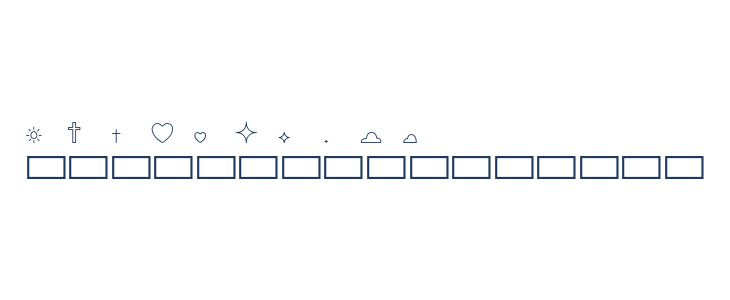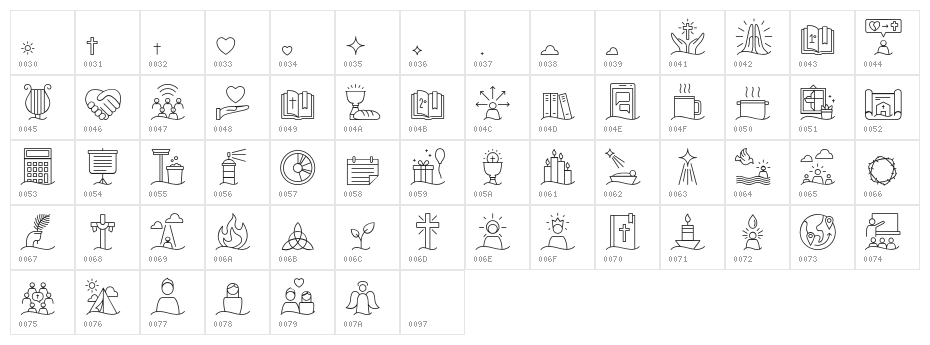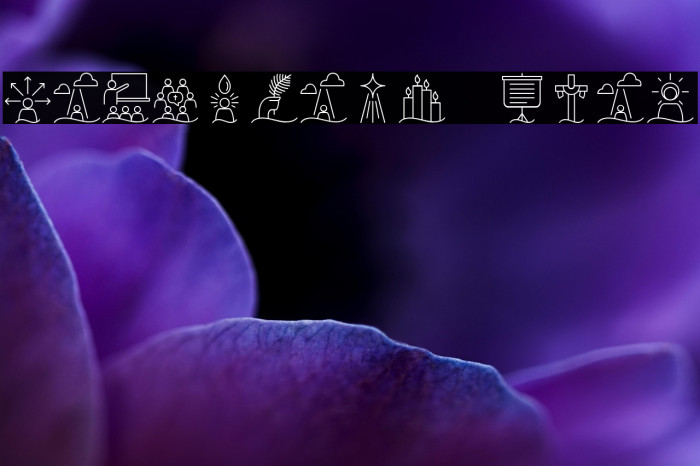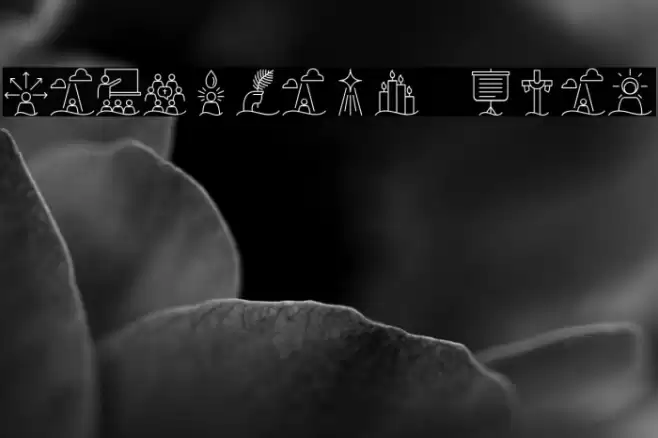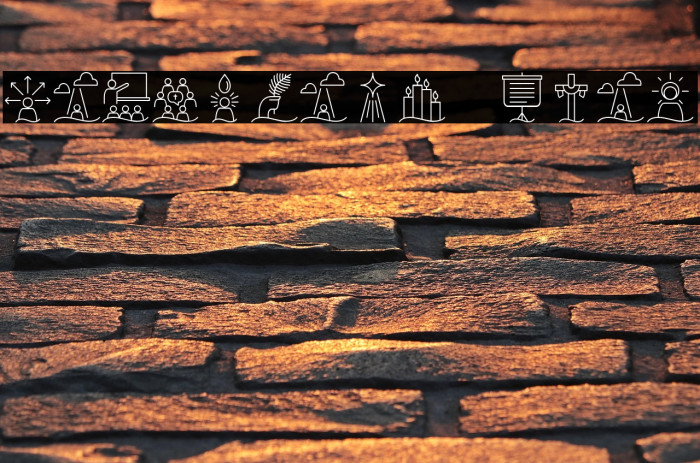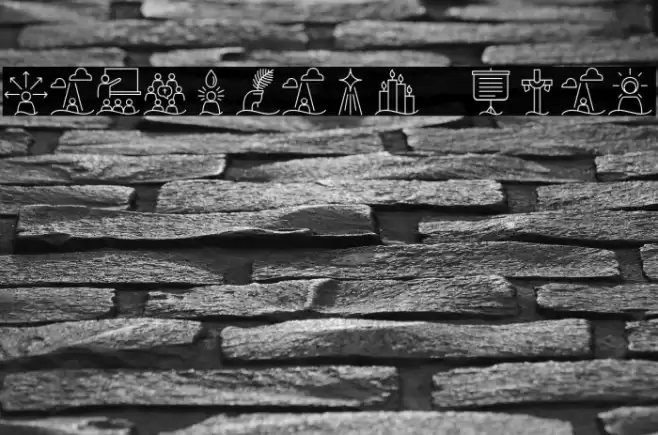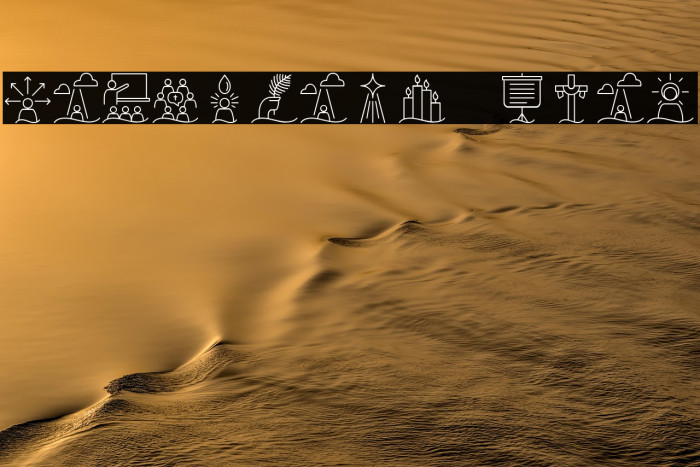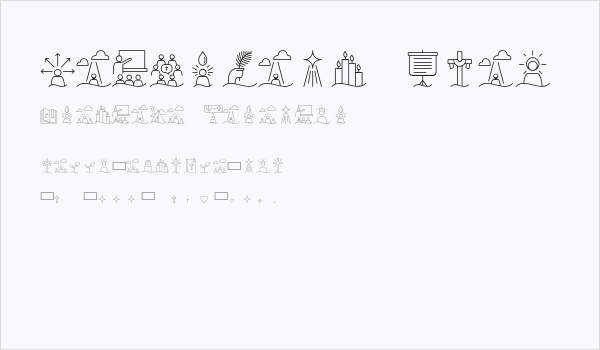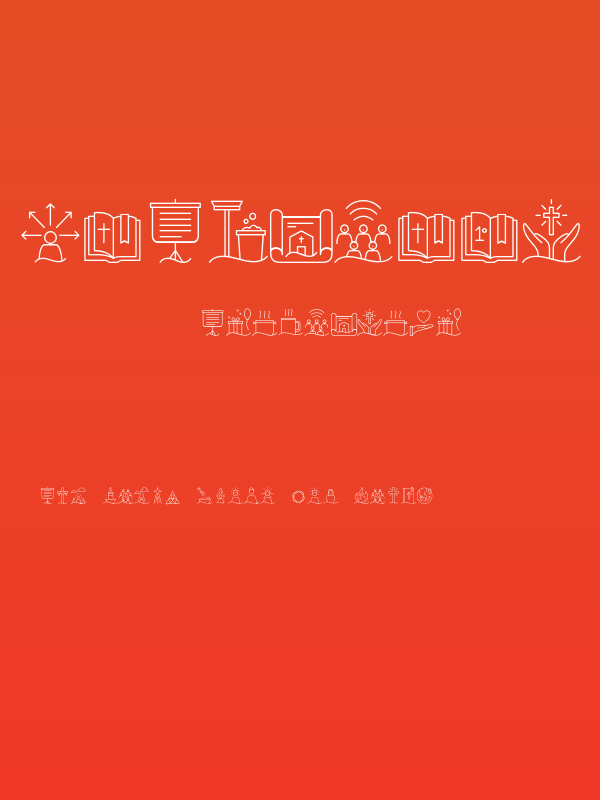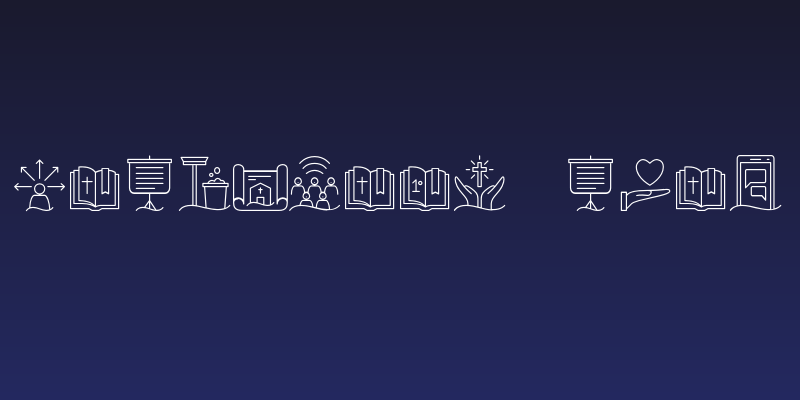
Liturgica Thin Font
Liturgica Thin Description
A collection of thin, line-based religious and spiritual icons with a minimalist and modern aesthetic. The icons feature smooth curves and consistent stroke weight, representing various faith-related symbols and activities.
| Overall Style | Modern, Minimalist, Decorative |
| Use Case | Icons, Logos, Infographics, UI elements |
| Proposed Projects | Church branding, worship bulletins, religious websites, educational materials, event flyers, app icons. |